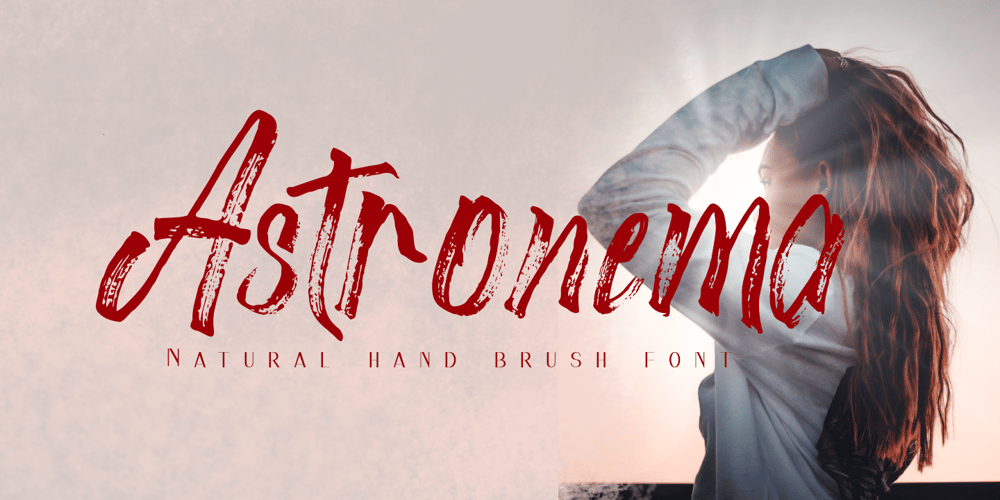
Astronema
Astronema font
Astronema Font Family was designed by Syukur Setiyadi and published by SSI.Scraps. Astronema contains 1 styles and family package options. Astronema is a unique textured brush font. It deliveries a strong feel and it’s the perfect choice for logos, branding, social media posts, magazines and much more!it is a truly great brush font. It features a unique feel that makes it perfect for clothing, invitations, book covers, stationery, quotes, branding, logos, greeting cards, packaging designs, posters, and much more.